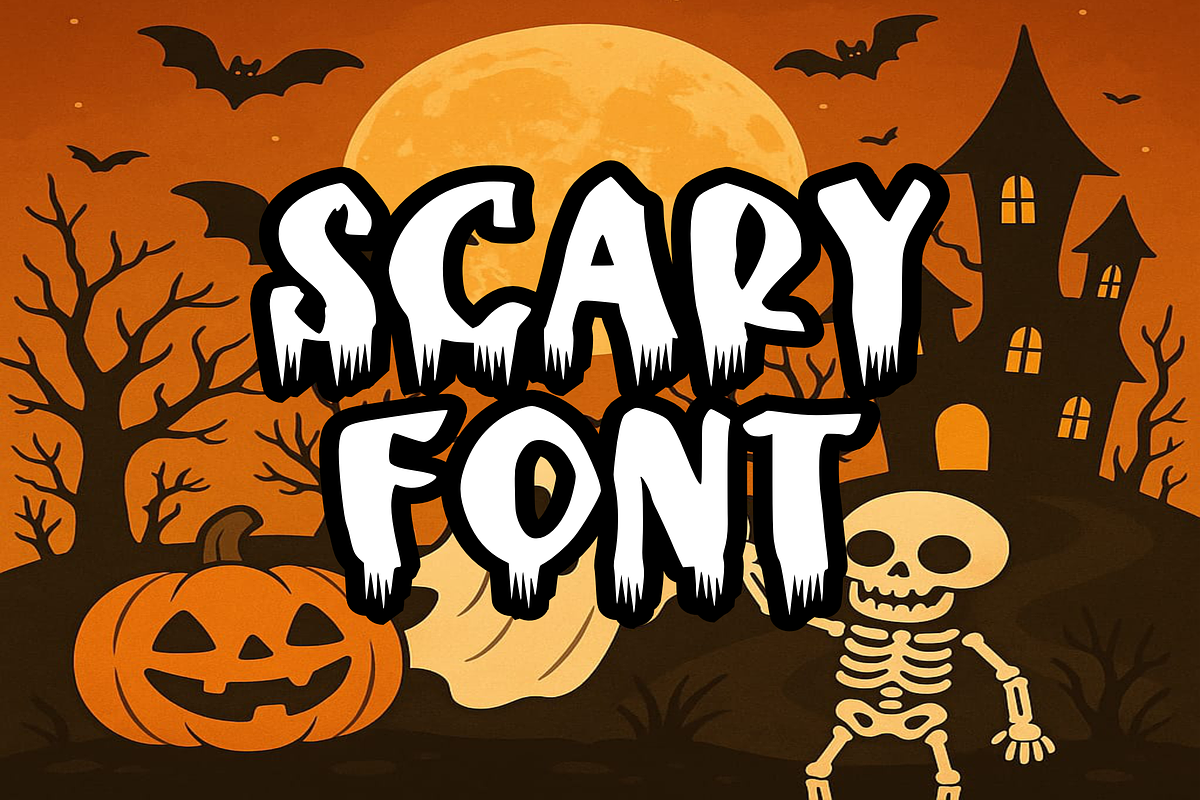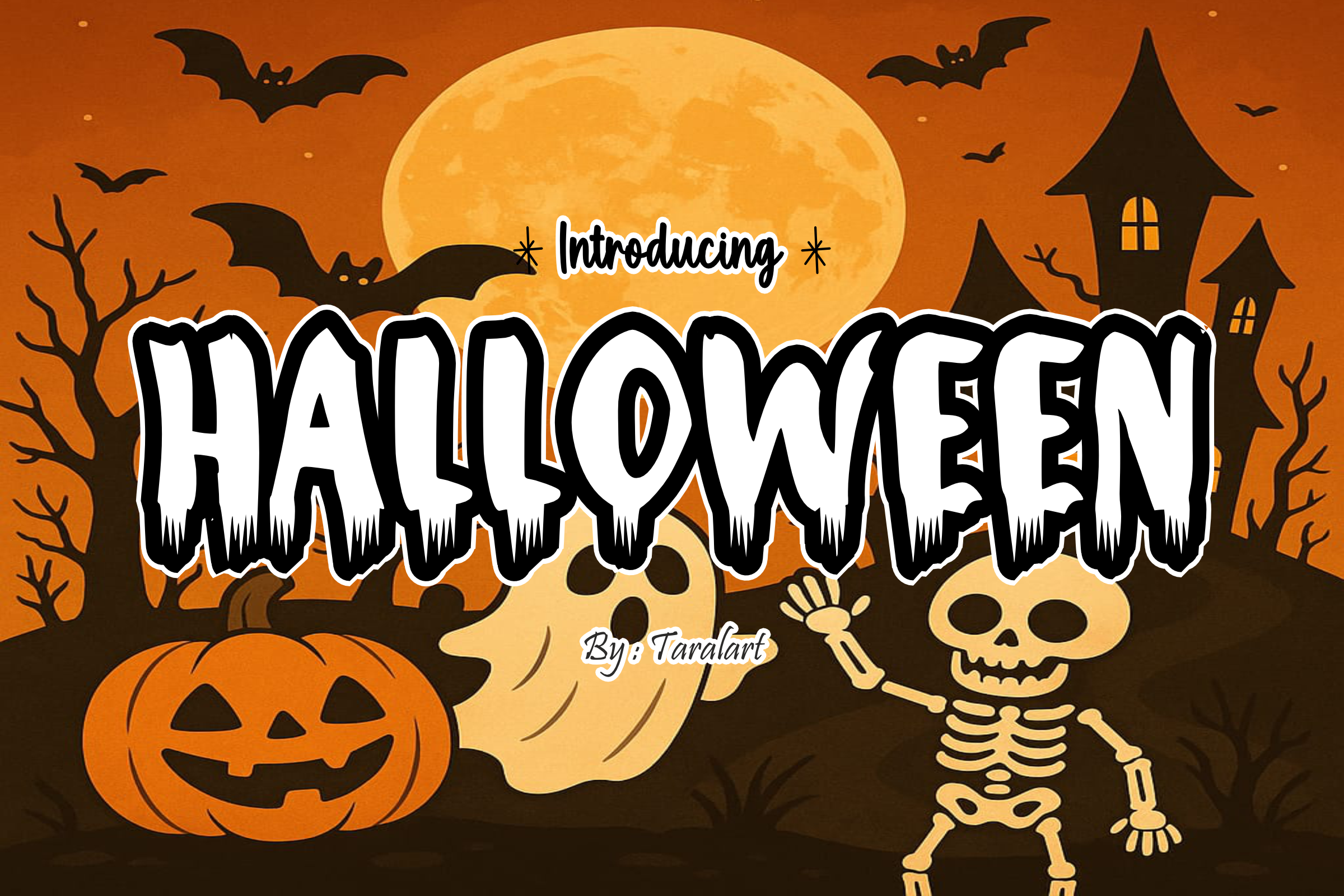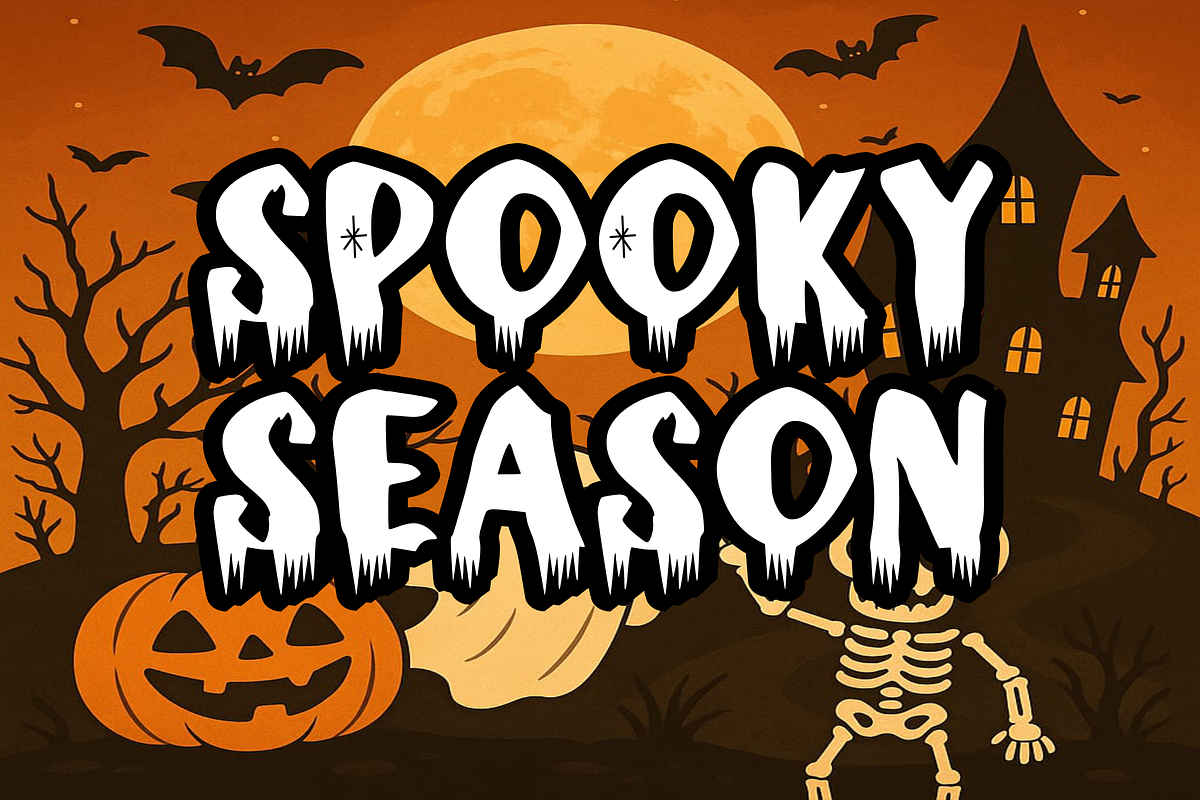
HALLOWEEN - Spooky Dripping Font
HALLOWEEN - Spooky Dripping Display Font
Get ready to spook up your designs with Halloween! This ultra-bold, creepy display font features dramatic dripping and melting letterforms that instantly bring a fun, haunted-house vibe to your typography. It’s the ultimate choice for making your headlines, titles, and event logos look bone-chillingly creative.
Perfect for seasonal spooky branding, holiday party decor, and trend-focused crafting, Halloween masterfully pairs a chilling horror aesthetic with excellent legibility. It is highly versatile, deeply expressive, and fully optimized for seamless performance across premium digital cutting tools and professional print setups.
All-Caps Character Set (Chunky, spooky dripping uppercase letters)
Halloween Party Invitations, Haunted House Posters, & Spooky Branding 🎃
Horror Book Covers, Movie Titles, & Creepy Storybook Layouts 📚
Custom Die-Cut Stickers, Festive Apparel, & Trick-or-Treat Bags 👻
Social Media Graphics, High-Impact YouTube Thumbnails, & Game Assets 🎮